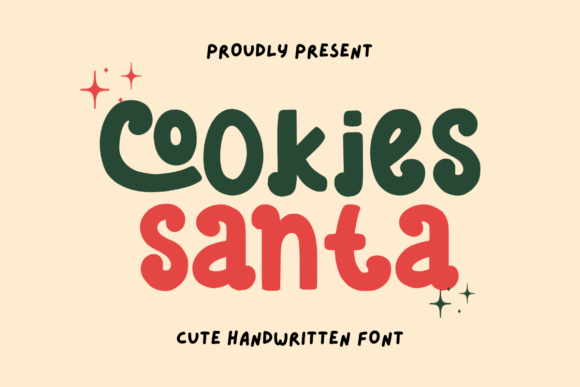
Introducing Cookies Santa Font, the perfect choice for your next design adventure! Created by the talented Nadiratype, this sweet and friendly handwritten font is here to add a touch of magic to your projects. With its natural and unique style, Cookies Santa Font is the ultimate choice for capturing the attention of your audience.
Are you tired of using the same old fonts that lack personality and creativity? Look no further! Cookies Santa Font will elevate your designs to new heights, ensuring that they stand out from the crowd. Its captivating charm will instantly captivate your viewers and leave a lasting impression.
Whether you're working on a travel poster, a greeting card, a logo, or any other design project, Cookies Santa Font is your secret weapon. Its versatility knows no bounds, allowing you to unleash your imagination and create stunning visuals that tell a story.
Imagine the joy and excitement your audience will feel when they lay their eyes on your designs. Cookies Santa Font adds a sprinkle of whimsy and a dash of elegance, making it the perfect choice for any occasion. From travel-inspired masterpieces to heartfelt messages, this font will bring your visions to life.
Not only does Cookies Santa Font provide a visually appealing experience, but it also offers functionality and ease of use. With its user-friendly nature, you'll have no trouble incorporating it into your projects and achieving the desired results. It's as simple as a few clicks, and voila, your designs will shine with brilliance!
Don't settle for ordinary when you can have extraordinary. Cookies Santa Font is your ticket to creating designs that leave a lasting impact. So why wait? Unlock the power of this enchanting font and let your creativity soar to new heights.
In a world filled with mundane designs, be the one who stands out. Choose Cookies Santa Font and let the magic begin!